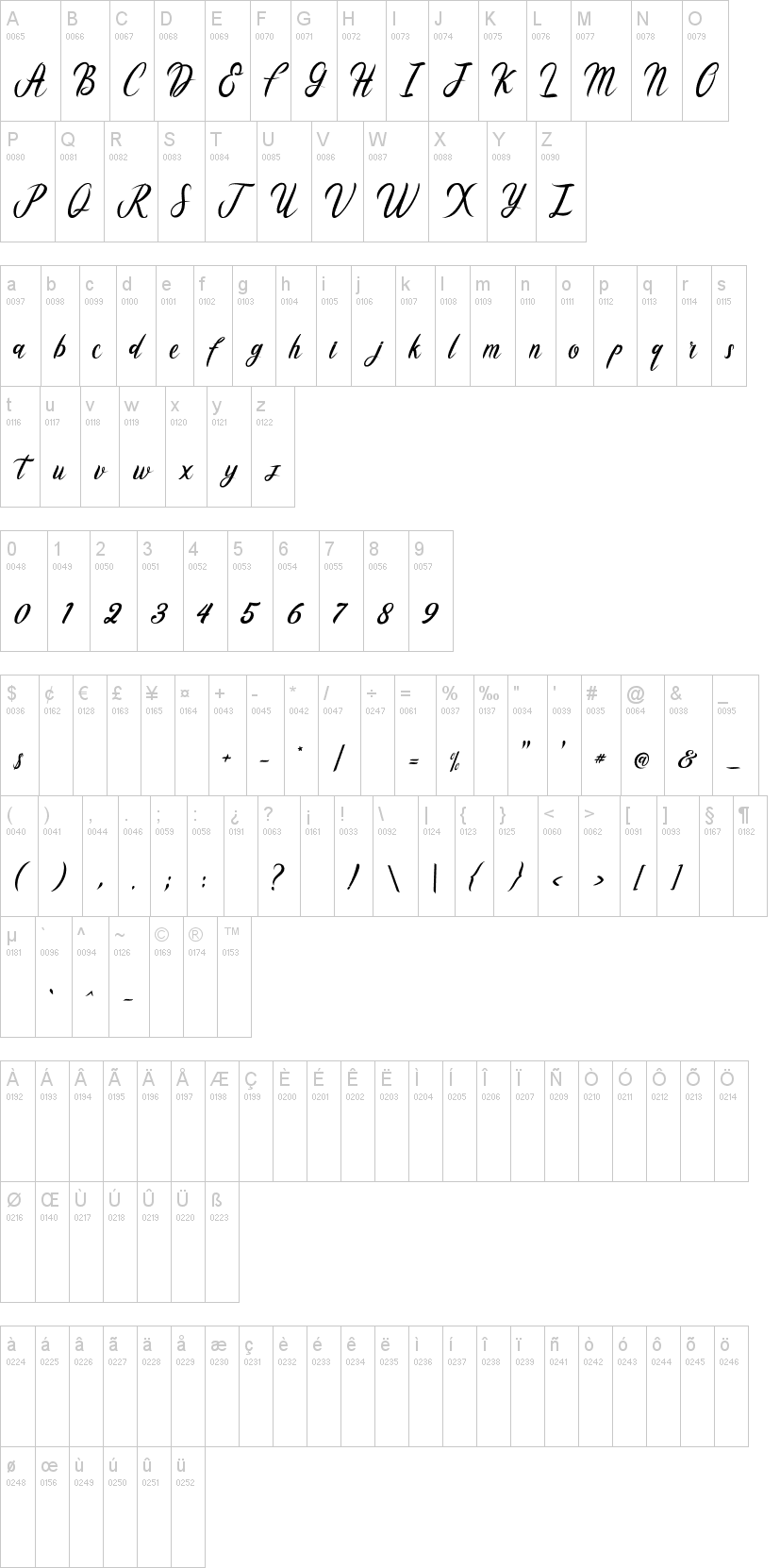
cataleya
Cataleya Font is a stunning display typeface available in OTF, TTF, and WOFF formats, ideal for creative projects, branding, and modern designs.
Explore the Beauty of Cataleya Font
Cataleya Font, crafted by renowned designer John Smith in 2022, showcases a unique combination of elegance and modernity, making it a perfect choice for a wide range of creative projects. Ideal for branding, magazine layouts, and promotional materials, this display typeface captures attention and elevates any design.
The Inspiration Behind Cataleya Font
Cataleya Font draws inspiration from natural beauty and delicate aesthetics, reflecting a floral elegance that appeals to modern sensibilities. Designed by John Smith, the font emphasizes smooth curves and artistic flair, making it stand out in contemporary typography.
Utilizing Cataleya Font in Your Designs
This font is ideal for projects that require a touch of sophistication, such as event invitations, branding materials for luxury services, and artistic websites. With its high readability and striking presence, Cataleya Font is sure to leave a lasting impression.